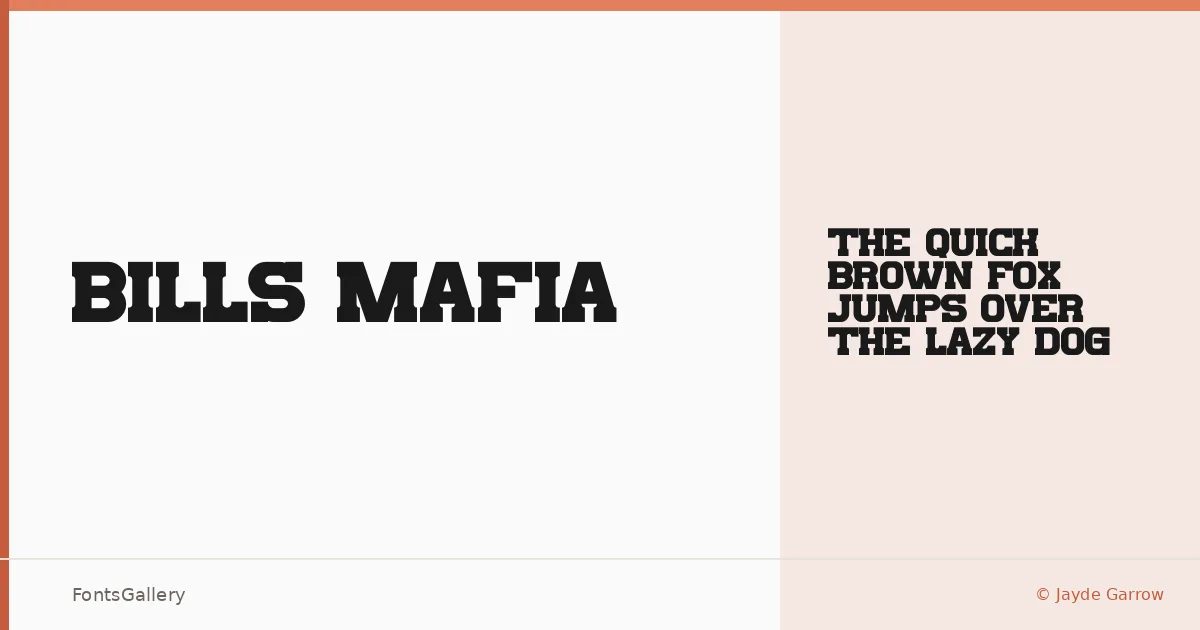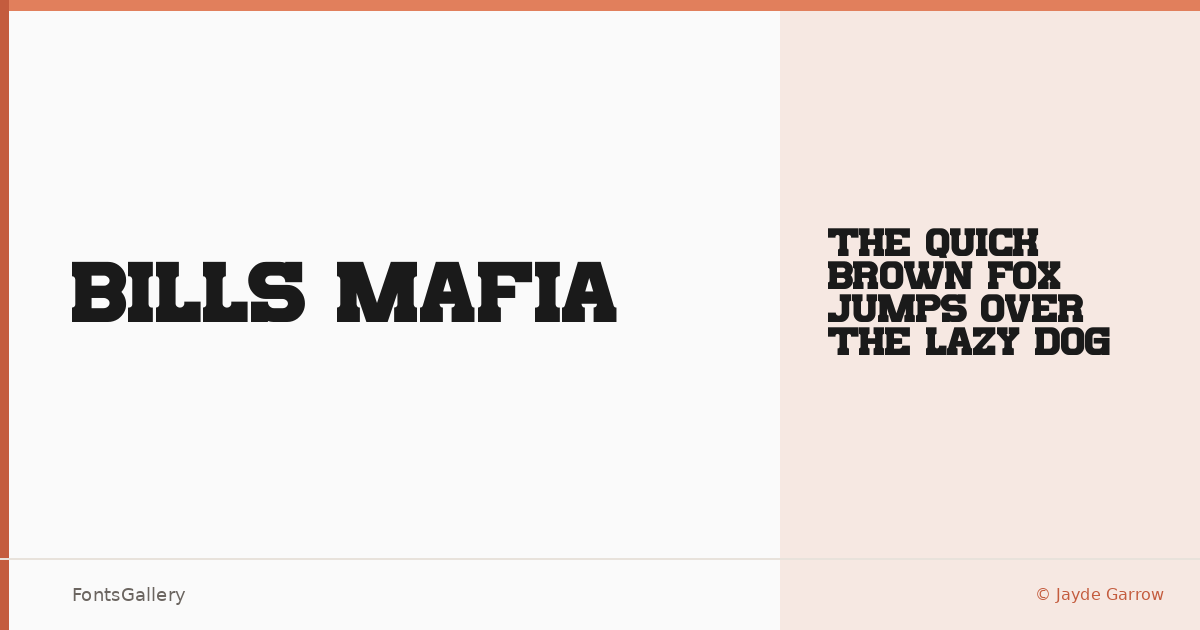
About Bills Mafia Font
There is a deliberate heaviness to this slab serif — the kind of weighted confidence that commands attention at large sizes without apology. Designed by Jayde Garrow, Bills Mafia arrives as a single Regular cut delivered in TTF format, built to hit hard in display contexts rather than to disappear into body copy.
The mood lands squarely in bold, classic territory with a vintage edge that feels at home on throwback branding and contemporary posters alike. The slab construction gives each letterform a sturdy, professional backbone — thick strokes anchored by blunt serifs that read with clarity even at a distance. This is a headline-first face; it has no interest in being subtle.
It earns its place on posters, logos, branding lockups, and t-shirt designs where a strong typographic statement carries the whole composition. Paired against a clean geometric sans like Helvetica or Aileron, the contrast is sharp and functional; set alongside a flowing script such as Allura or the display energy of Ballmain and Abrade, the combination takes on a more expressive, layered character.